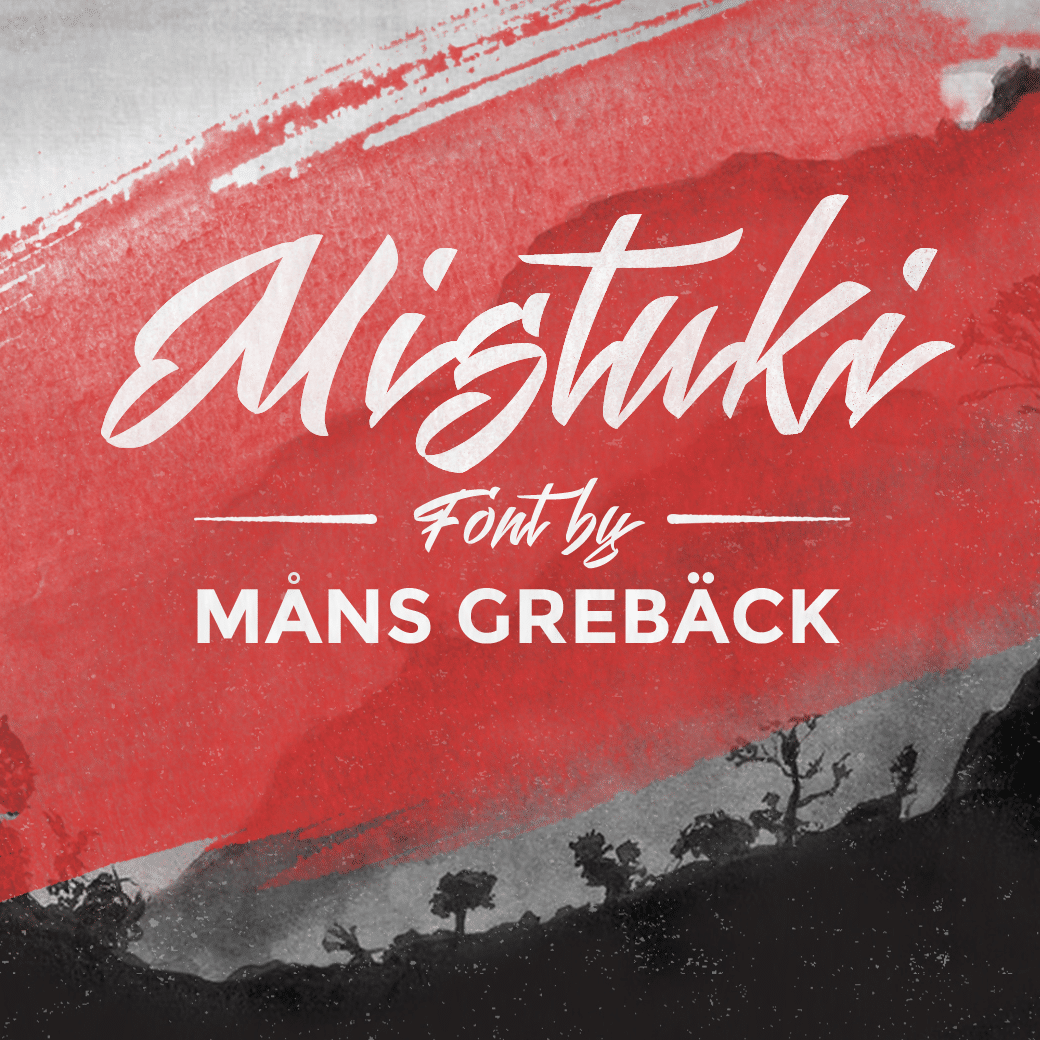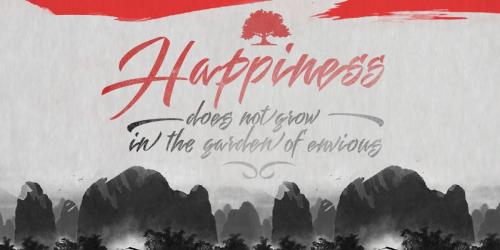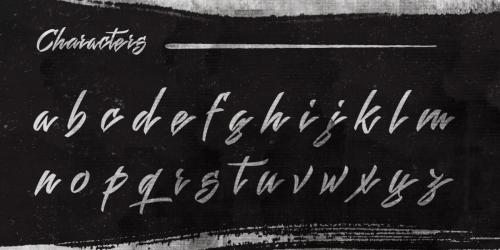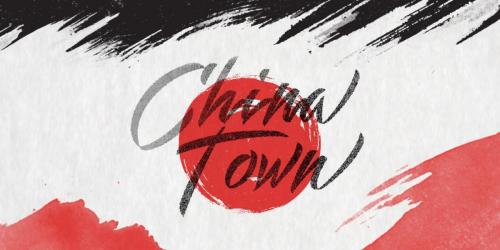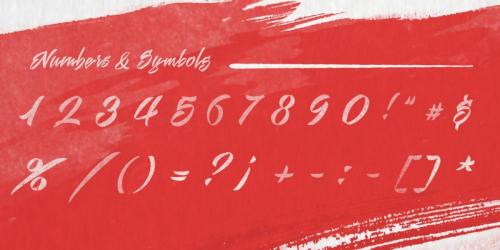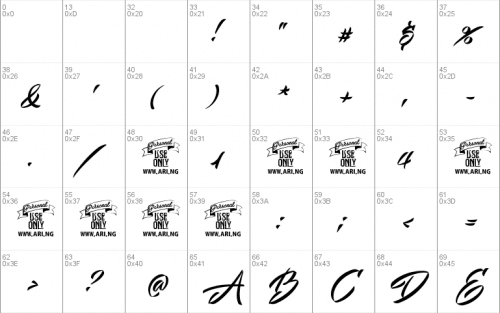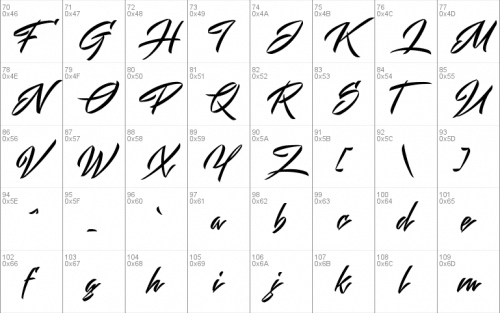
With inspiration from brush strokes, tattoo design and asian typography, Mistuki got two completely different sets of characters, and each of them got both subtle and large sized capital characters. Each version of Mistuki also got stylistic alternates and ligatures.
- Designer: Måns Grebäck